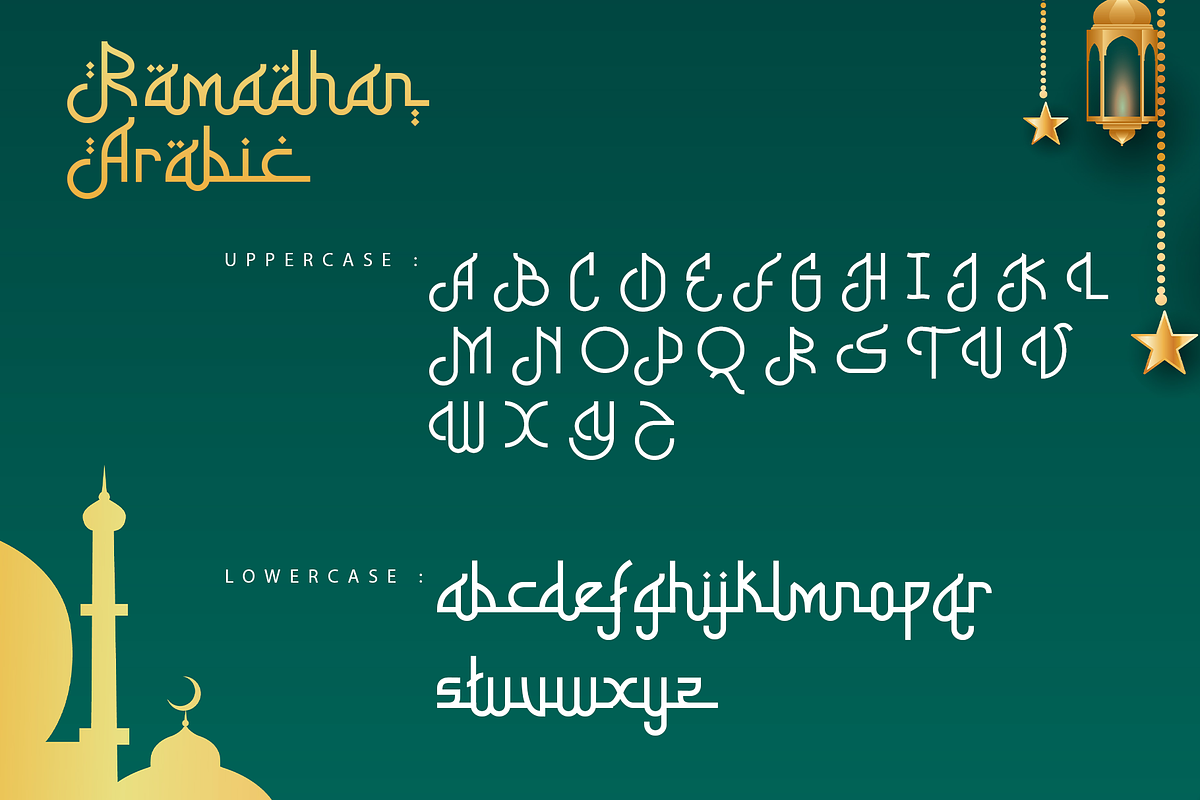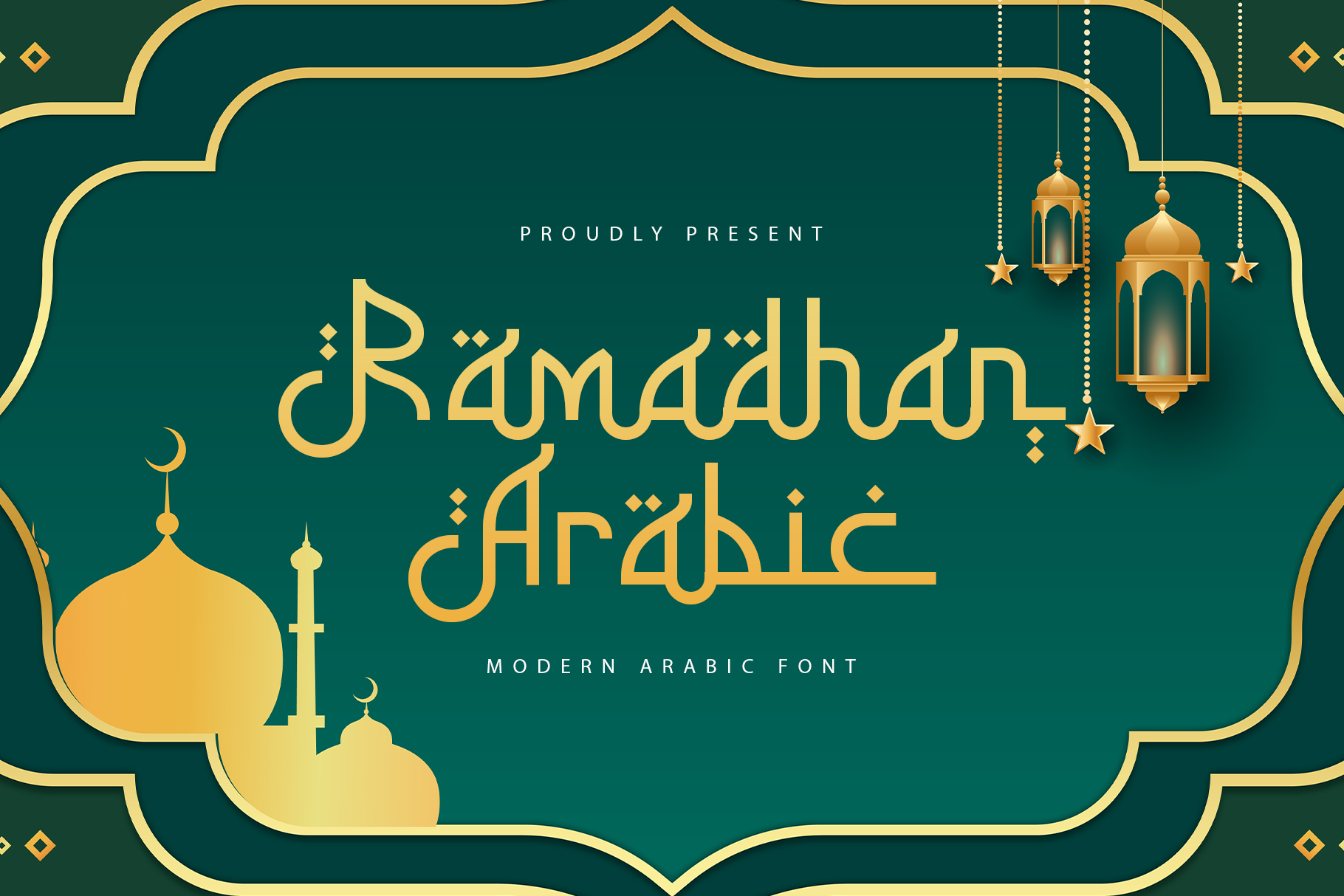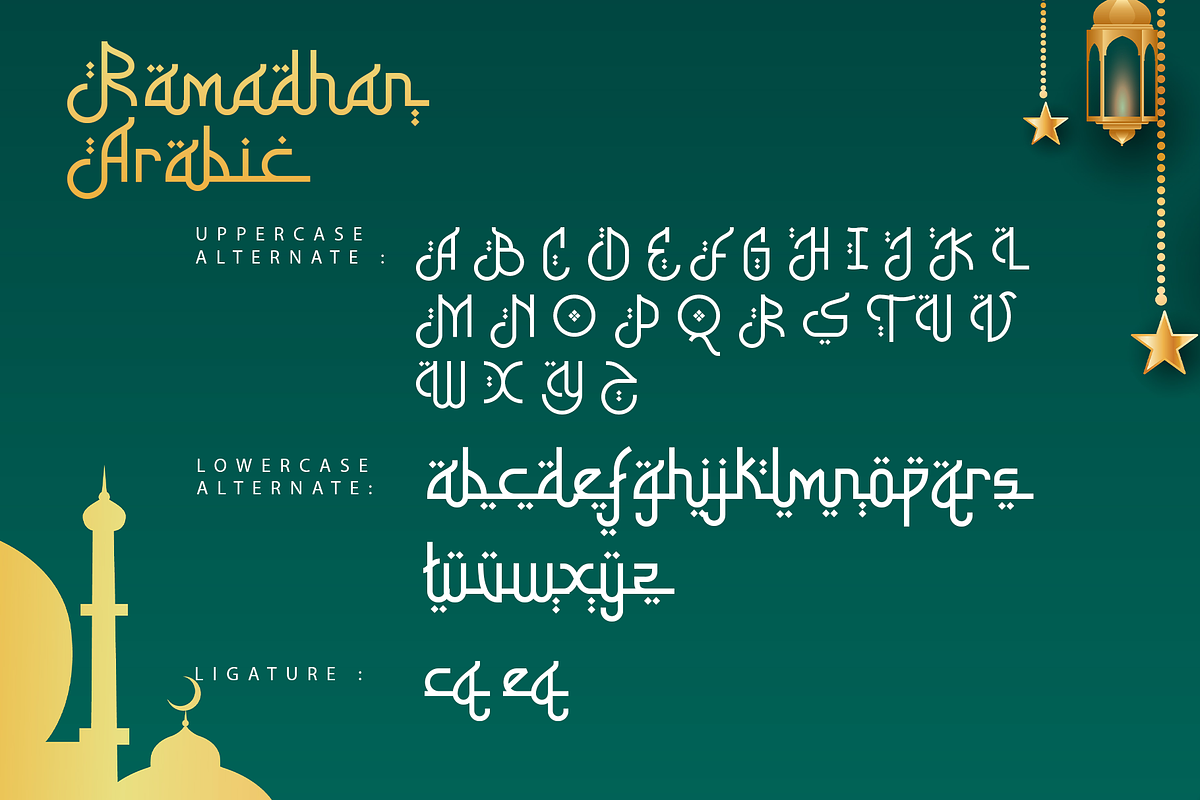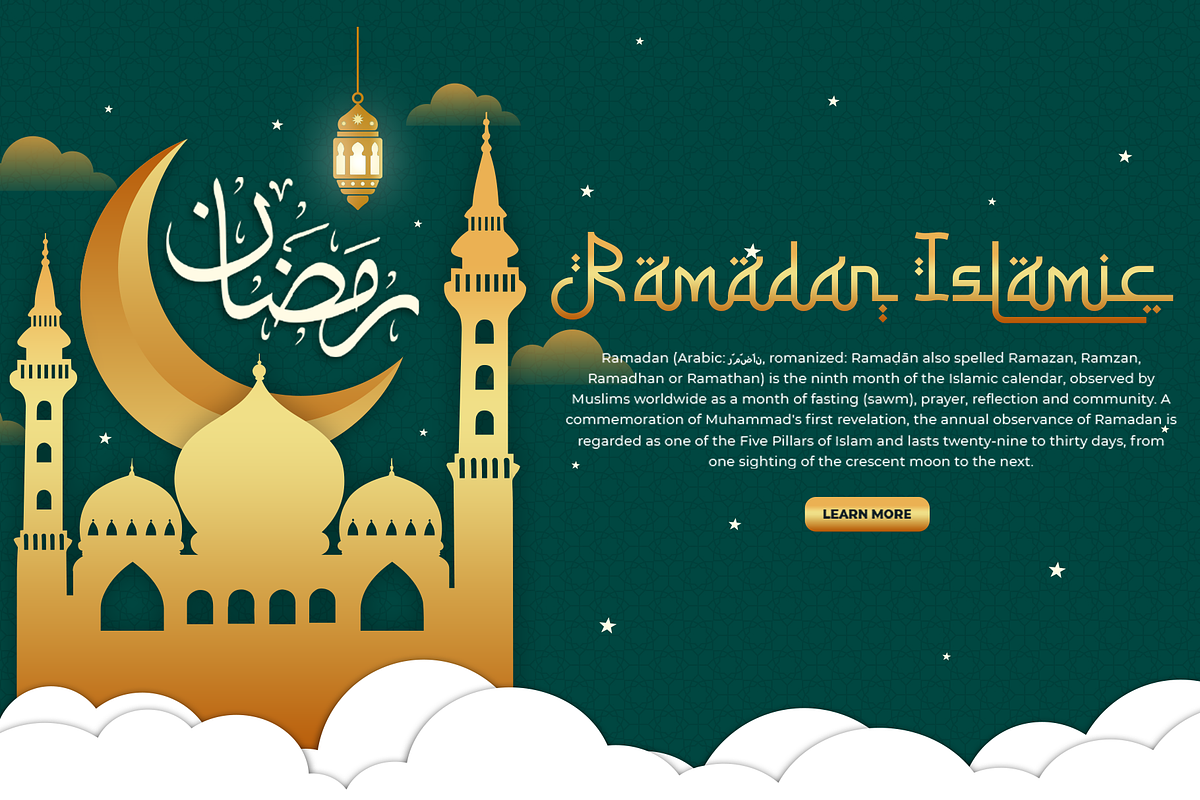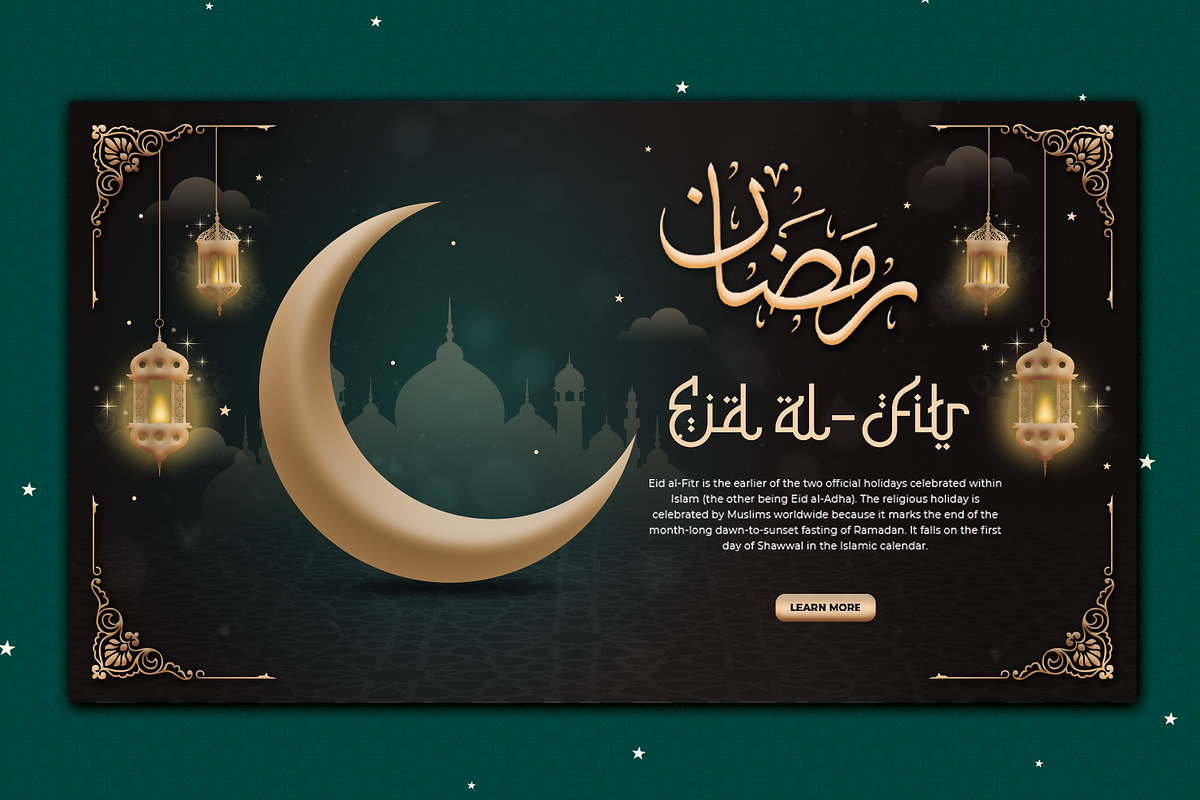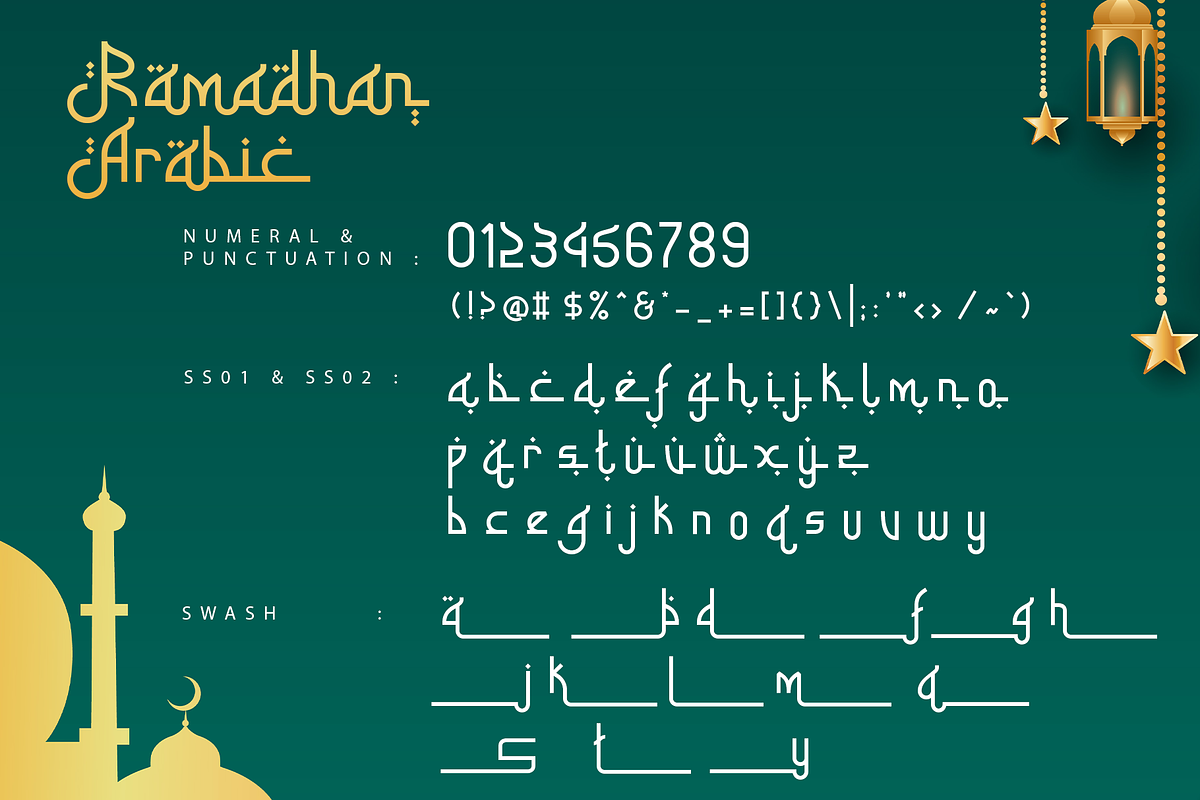
Ramadhan Arabic – Modern Arabic Font
Ramadhan Arabic – A Modern Arabic Font
Ramadhan Arabic is a modern Arabic font that combines traditional calligraphic elements with contemporary design, perfect for creating culturally meaningful yet stylish visuals. This font offers smooth curves and elegant forms, making it ideal for branding, product packaging, invitations, posters, and social media campaigns.
Designed with readability and versatility in mind, Ramadhan Arabic is suitable for both headlines and body text. Whether used for holiday greetings, event promotions, or corporate branding, this font conveys sophistication while maintaining a distinct Arabic aesthetic. It shines in both bilingual and decorative projects, enhancing the visual harmony of your designs.
Celebrate the spirit of creativity with Ramadhan Arabic—a font that blends tradition with modernity to elevate any design project.